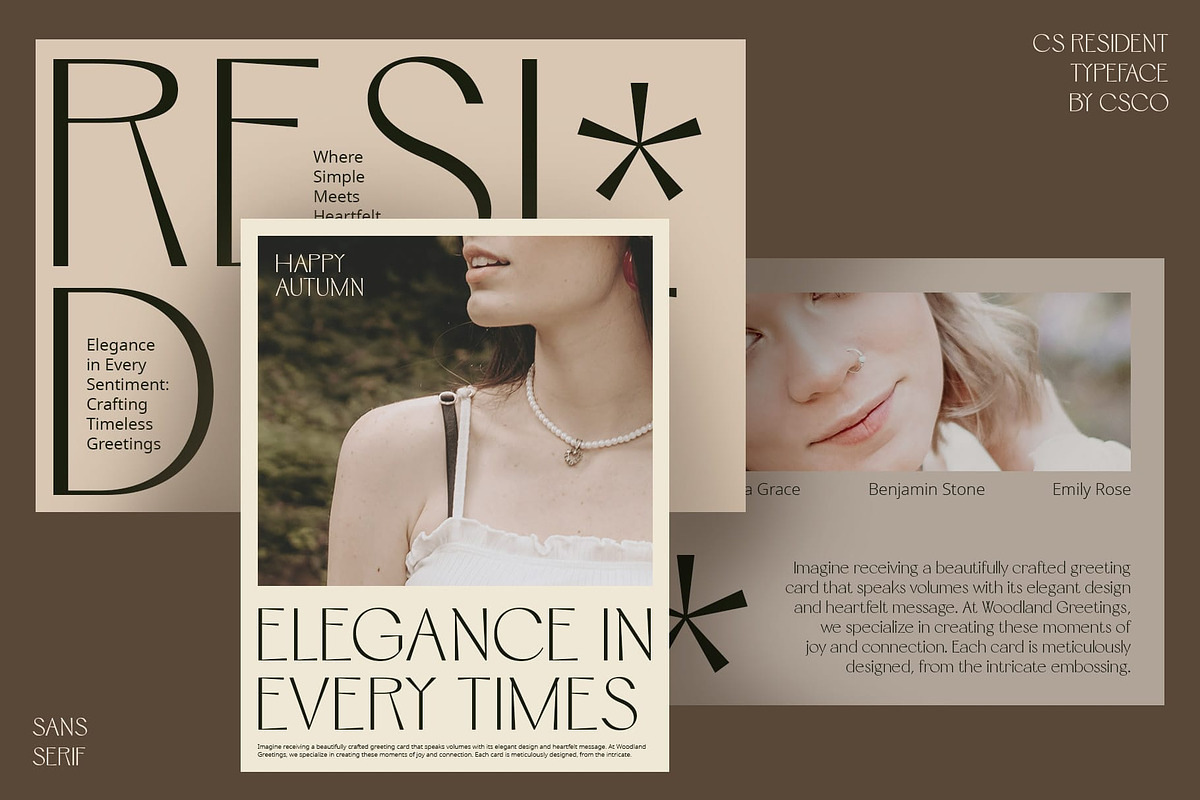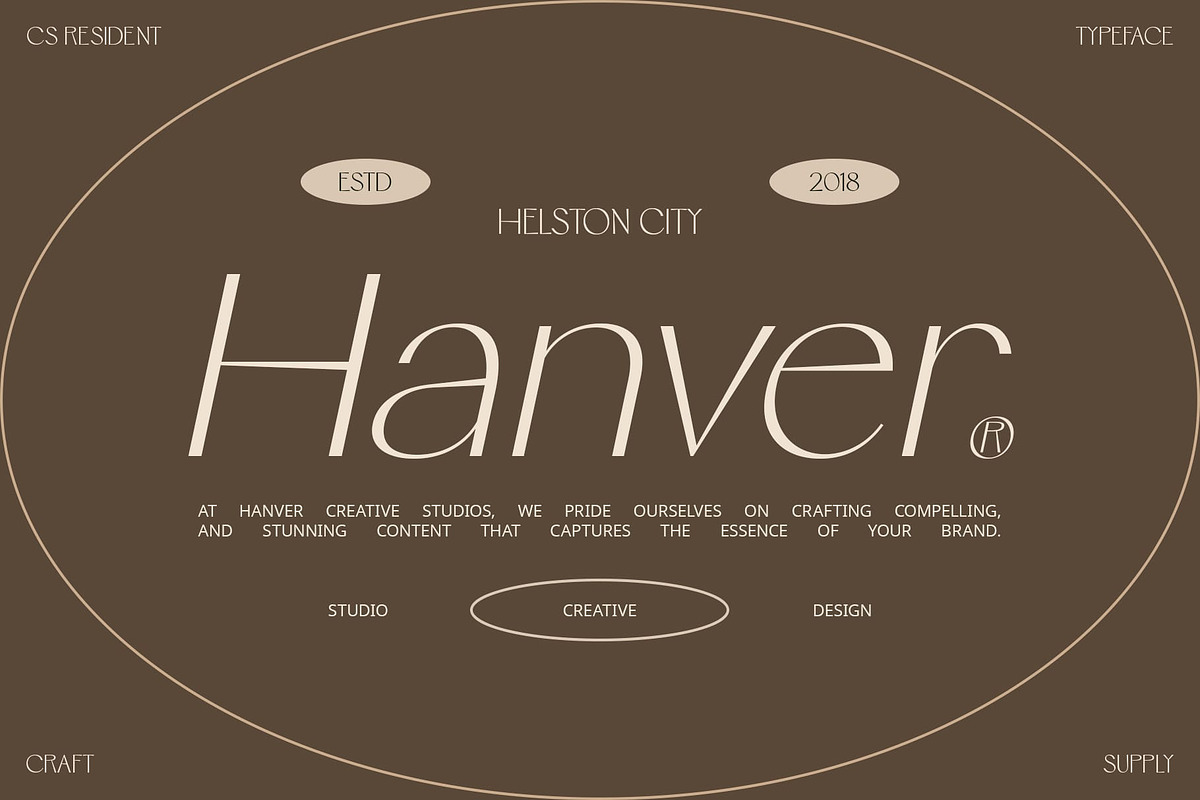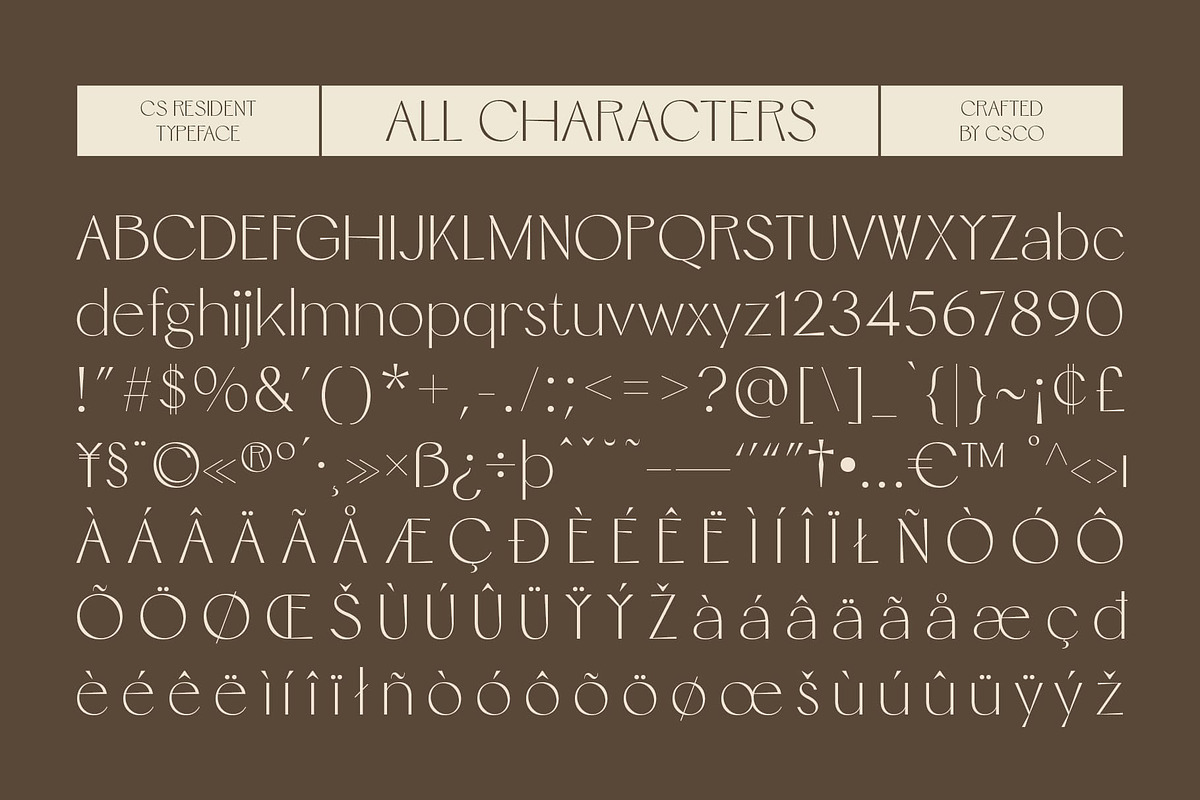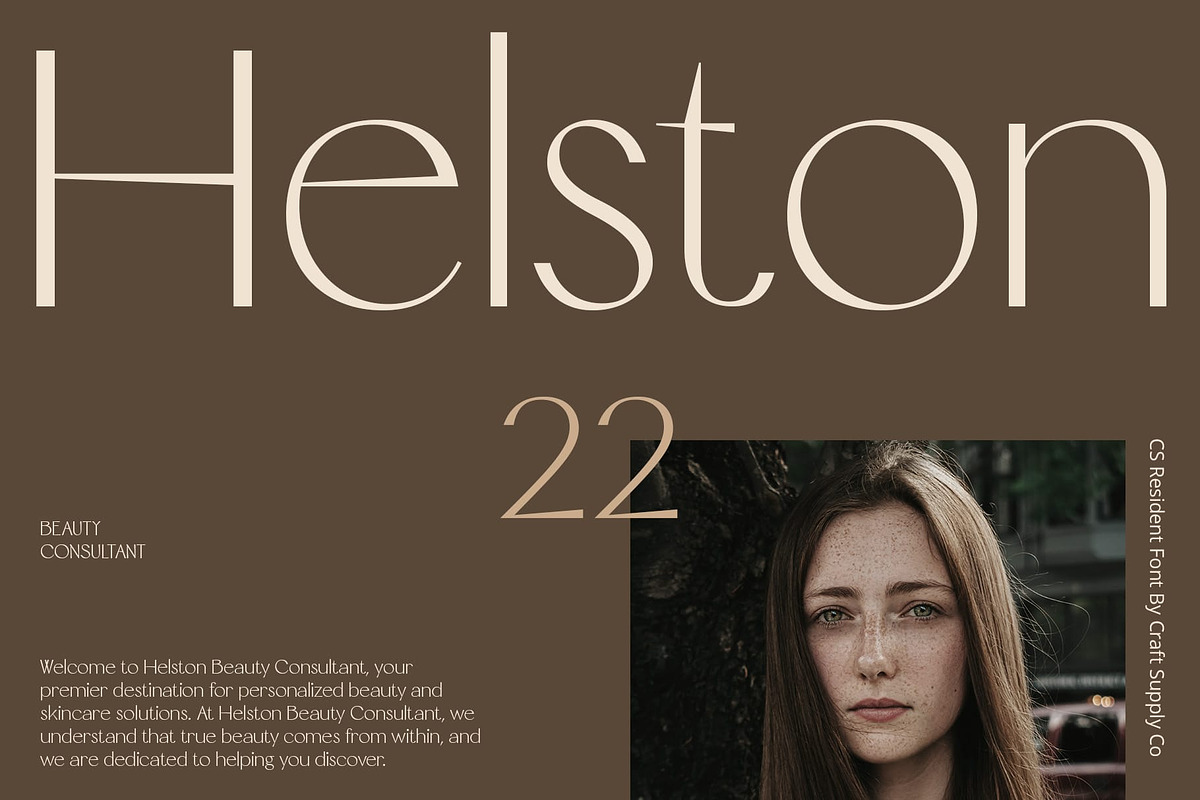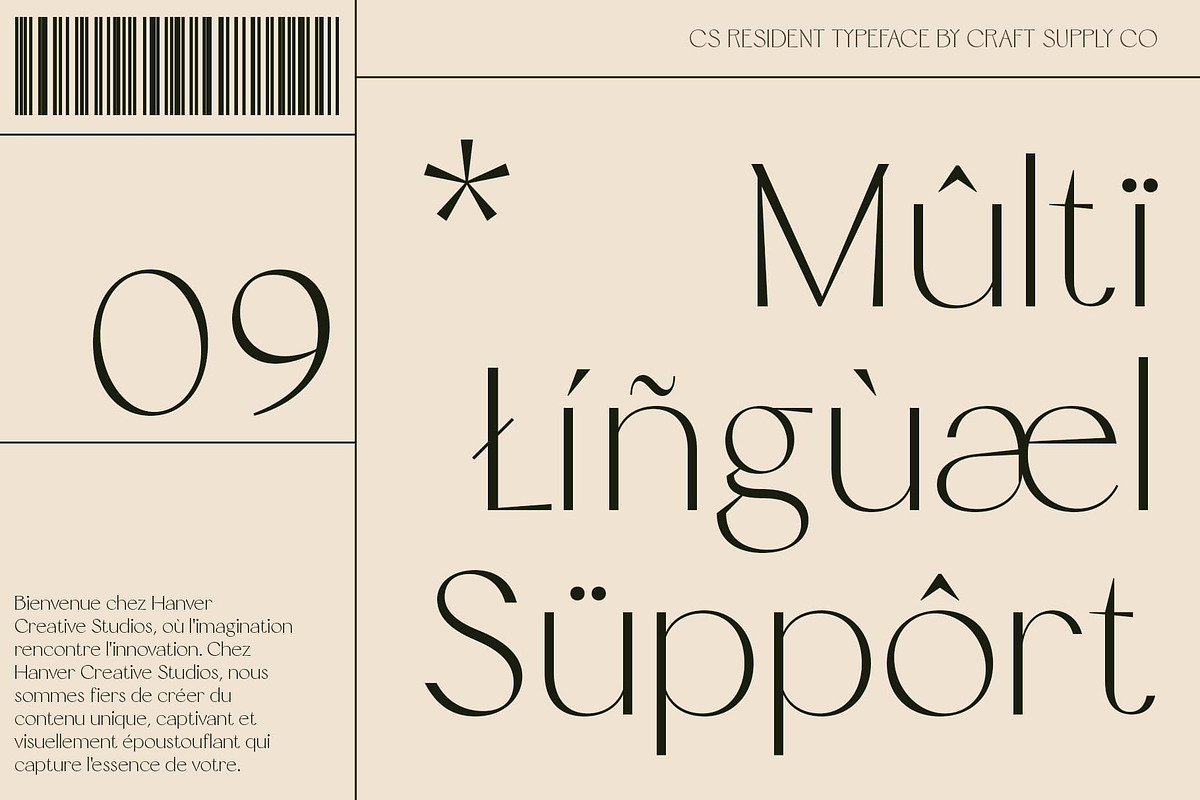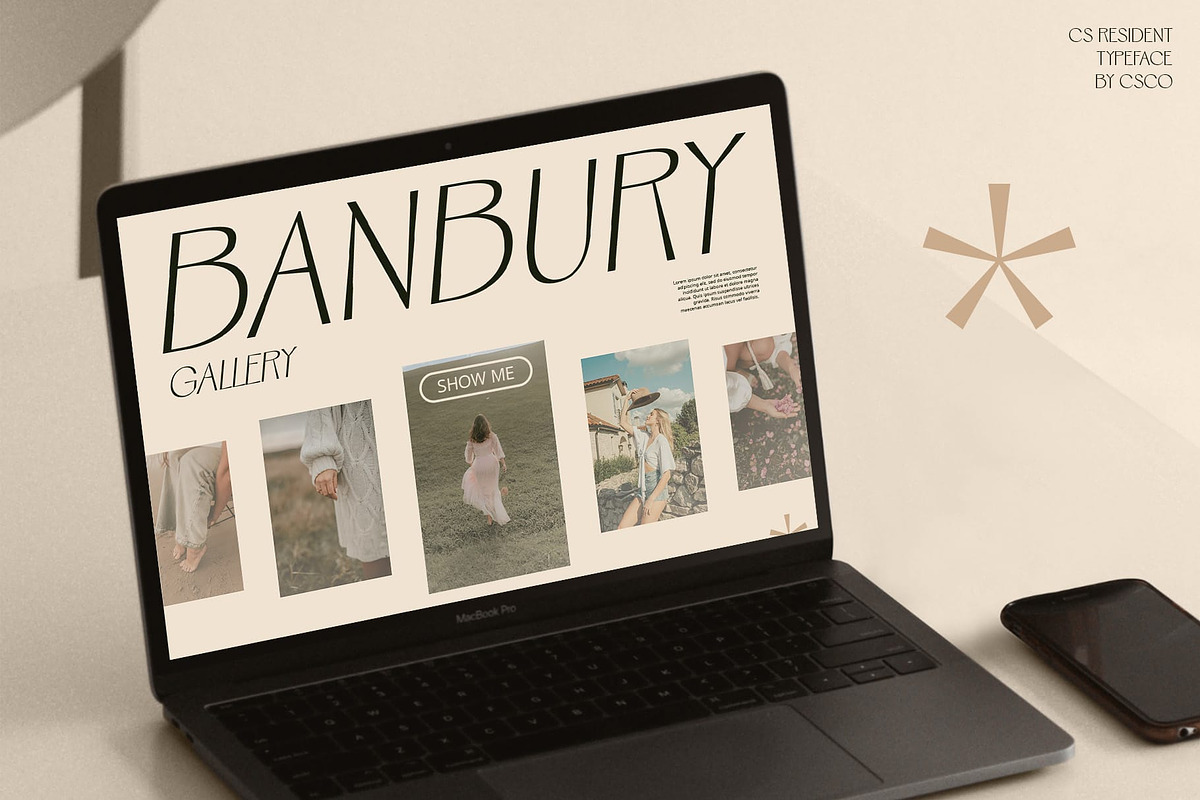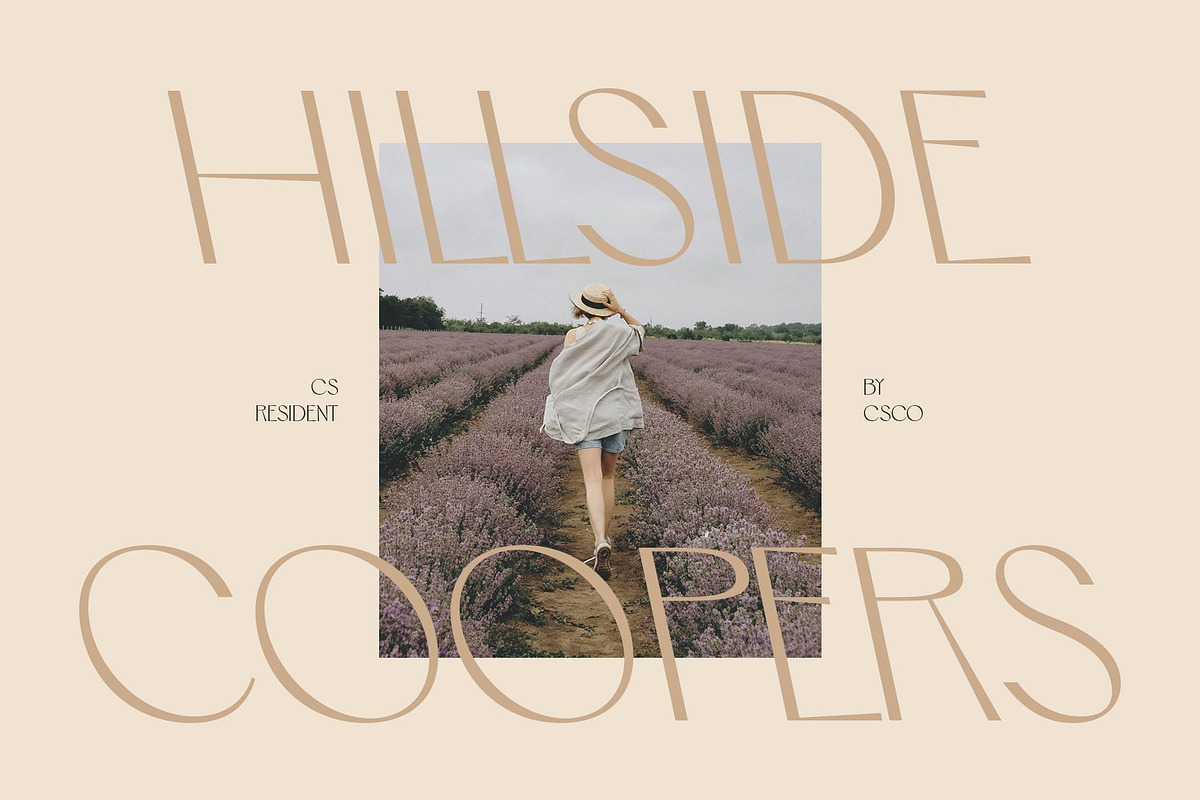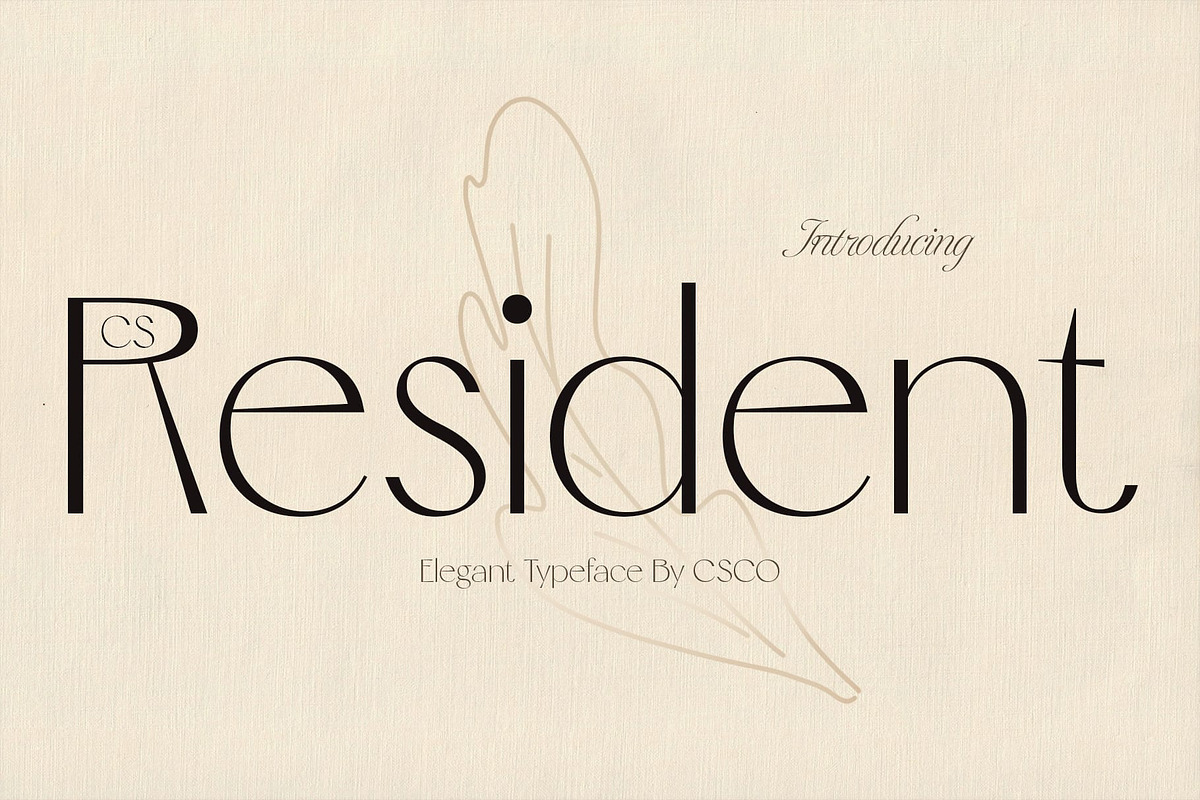
CS Resident – Elegant Font
CS Resident – Elegant Font: Embodying Elegance with Modern Simplicity
Elegant Sans Serif Font
CS Resident is a refined sans serif font that epitomizes elegance through its clean and minimalist design. Perfect for projects requiring a modern, professional appearance, this font excels in corporate branding, editorial design, websites, and various visual applications.
Modern and Clean Design
The strength of CS Resident lies in its clean lines and minimalist approach, ideal for conveying a contemporary and sophisticated aesthetic. Its simplicity ensures clarity in typography design, making it a preferred choice for projects that prioritize modernity and professionalism.
Versatile Application
Whether used in corporate branding, editorial layouts, websites, or other visual applications, CS Resident enhances your designs with its elegant and clean look. Its versatility allows it to adapt seamlessly to different design needs while maintaining a consistent sense of sophistication.
Elevate Your Design Projects
Choose CS Resident to infuse your designs with elegance and modern simplicity. This font guarantees a refined appearance that resonates with clarity and professionalism, ensuring your projects make a lasting impact.